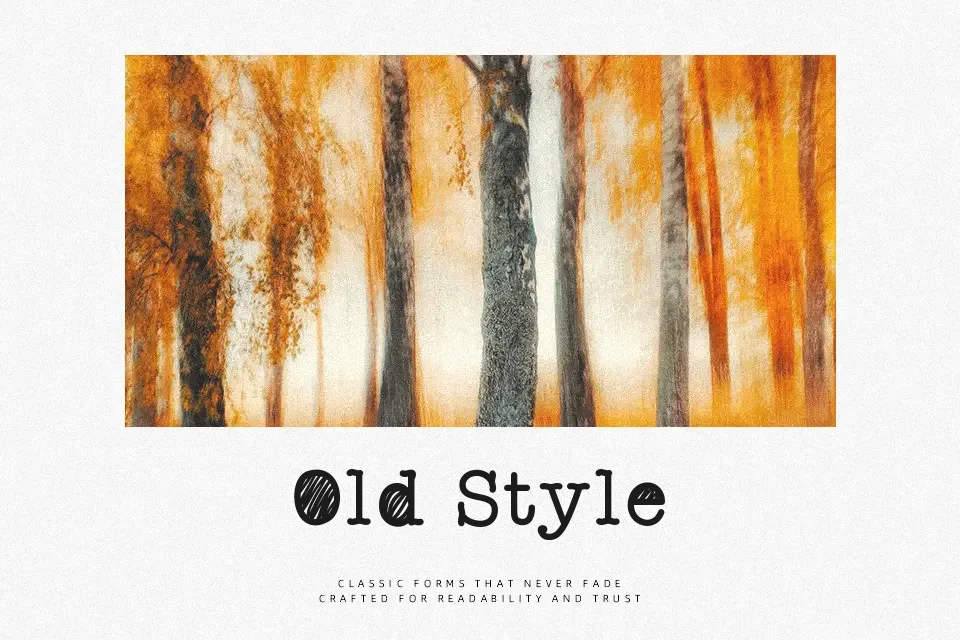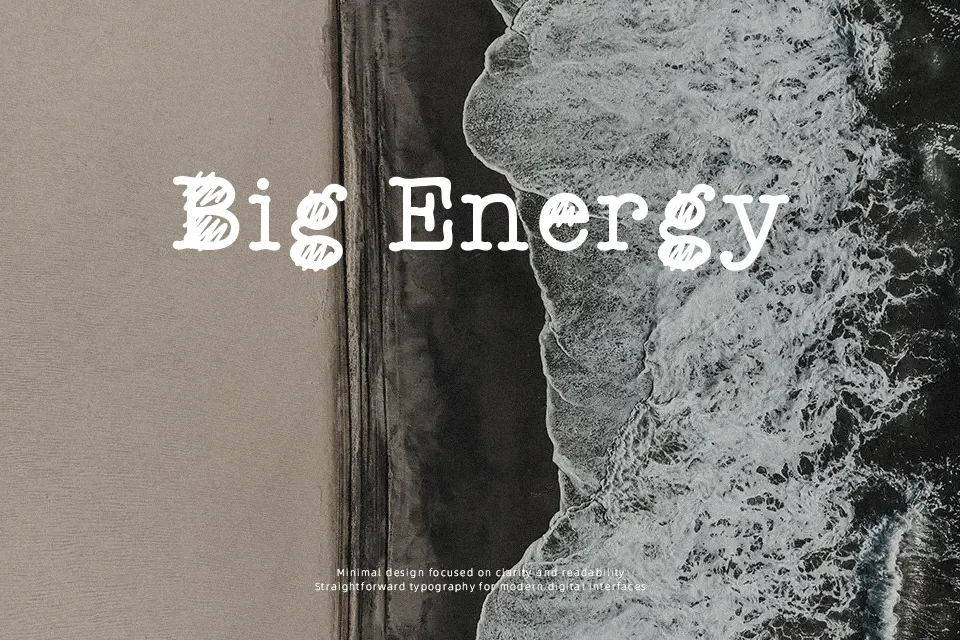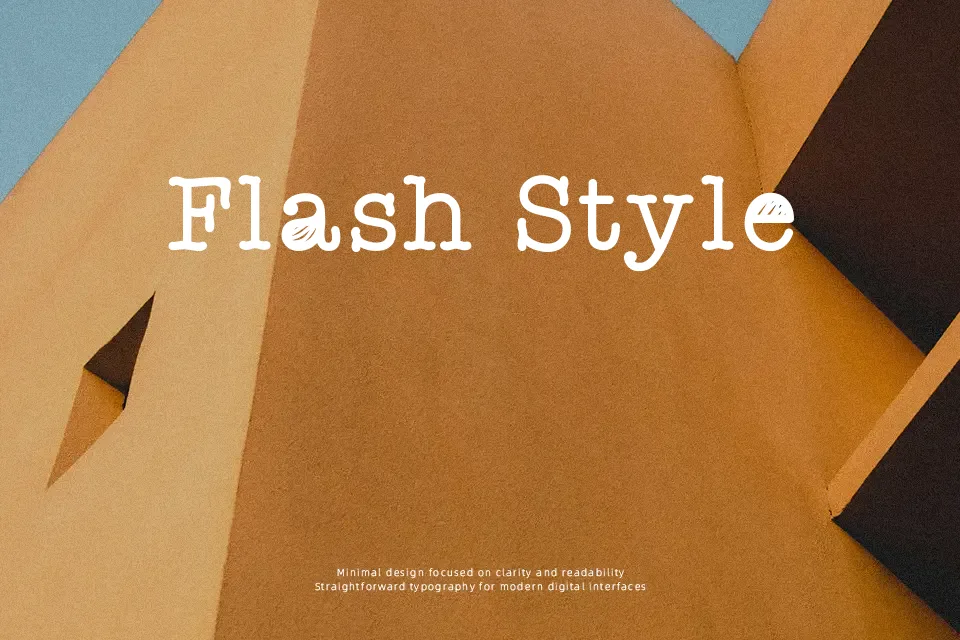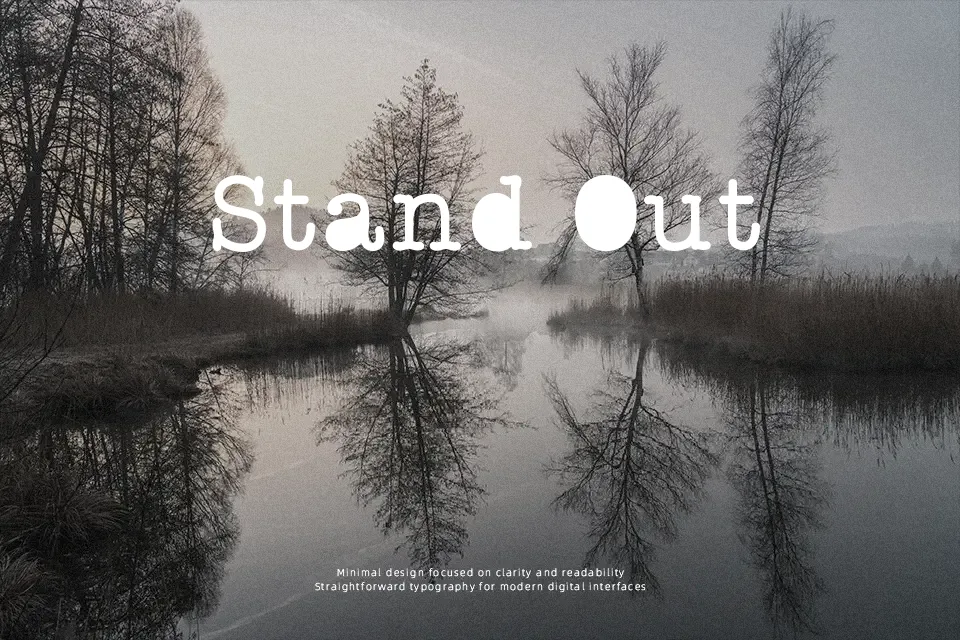
Staff Meeting Font
Staff Meeting uses typewriter-like serif letterforms with firm strokes, compact proportions, and a regular rhythm that recalls printed office notes. The characters appear structured rather than loose, while the three included files suggest options for faster-looking text treatments. Its spacing keeps short headings and labels legible at display sizes, and the recognizable typewriter structure works well when a document-like tone is wanted. The font is less comfortable for extended reading, however, because its sturdy, characterful forms can make dense paragraphs feel visually repetitive. It is a practical choice for brief copy that needs an informal printed-page presence.
Best For: memo-style poster headings,classroom worksheets,office-themed graphics,product labels
Not Ideal For: long paragraph text,small interface labels,dense editorial layouts,technical manuals
Perfect for branding, headline, and packaging, with a classic and display style.